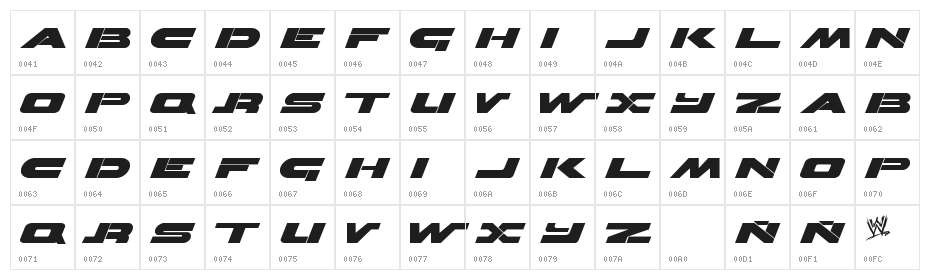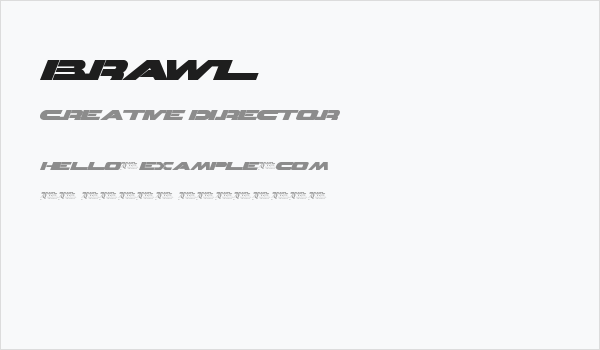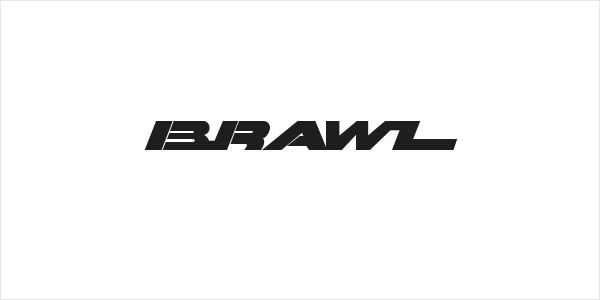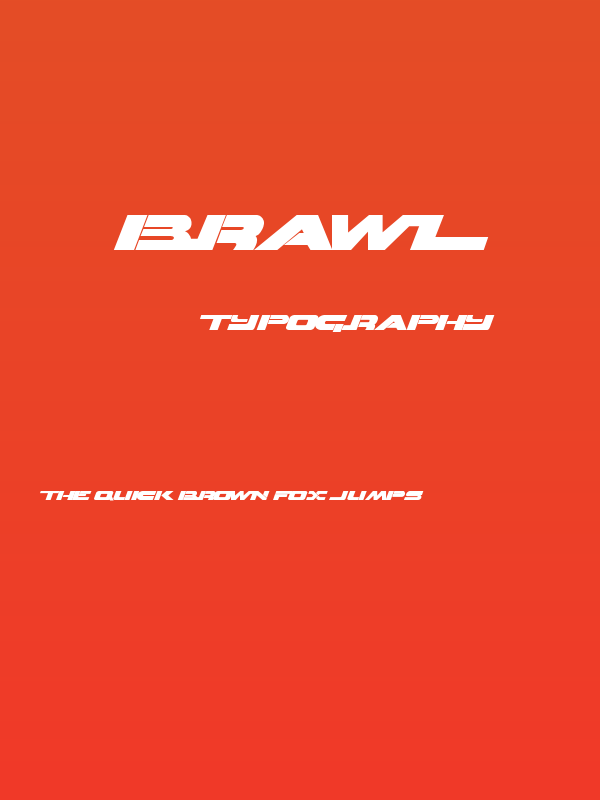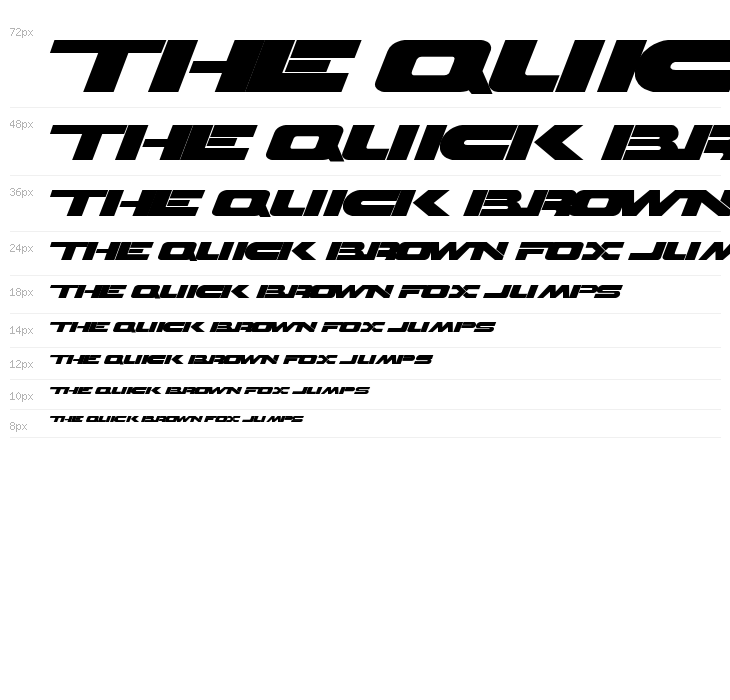
Brawl Font
Brawl Description
This font features a bold, angular design with a futuristic and aggressive aesthetic. The characters are sharply cut with a distinct slant, giving a sense of motion and speed. The uppercase letters are particularly striking, with wide, geometric forms that convey strength and modernity. The lowercase letters maintain the same angular style, ensuring consistency throughout. The numbers and special characters are designed to match the overall theme, making this font suitable for dynamic and impactful designs.
| Proposed Projects | Ideal for sports branding, video game titles, action movie posters, and any project requiring a strong, modern look. |